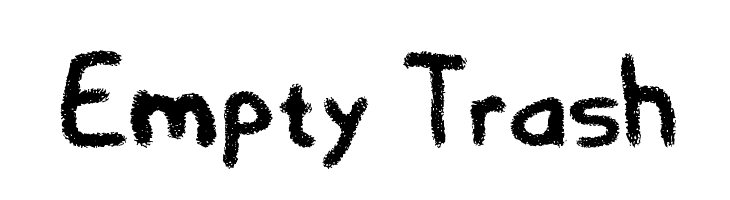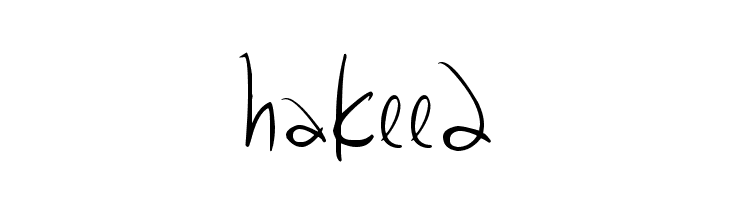
A bold, handwritten font with a playful and casual style.
A playful, handwritten font with fluid and dynamic strokes.
An artistic, cursive script font with a calligraphic flair.
A cursive font with sharp, angular elements and elegant flow.
A playful, handwritten font with bold, rounded characters and a friendly appearance.